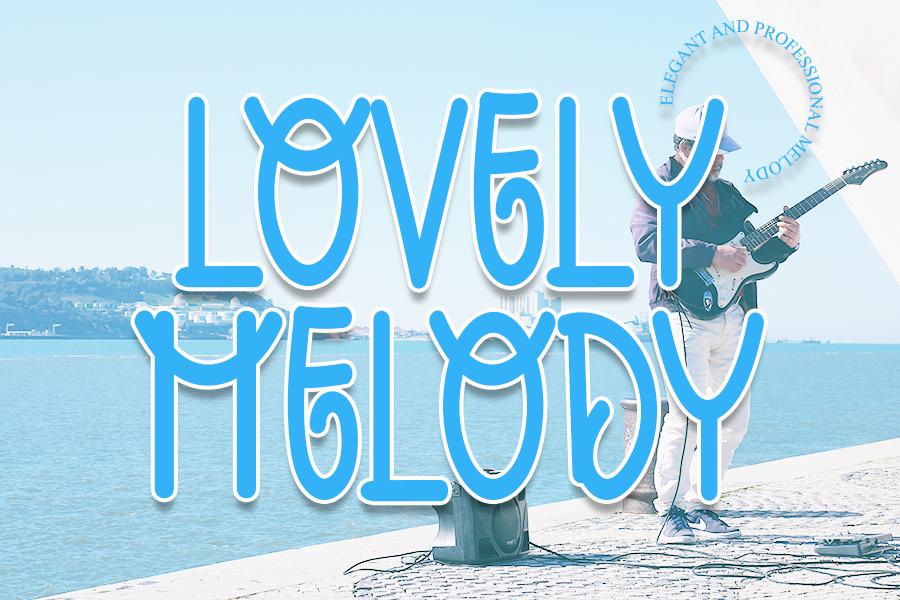
Lovely Melody Font Description
Lovely Melody is a cute and whimsical display font. Whether you are using it for cartoon-related designs, children’s games, quotes, titles, brand names, book covers, posters, or just any creation that requires a touch of beauty, this font is a great choice.